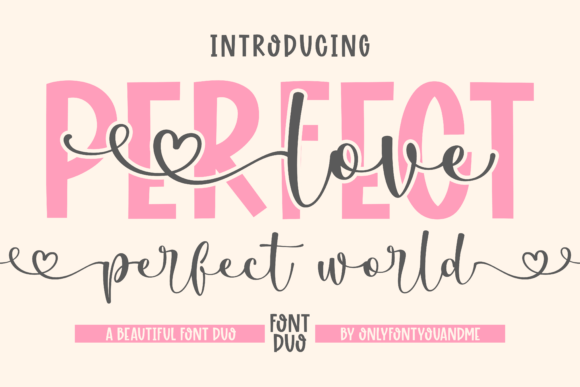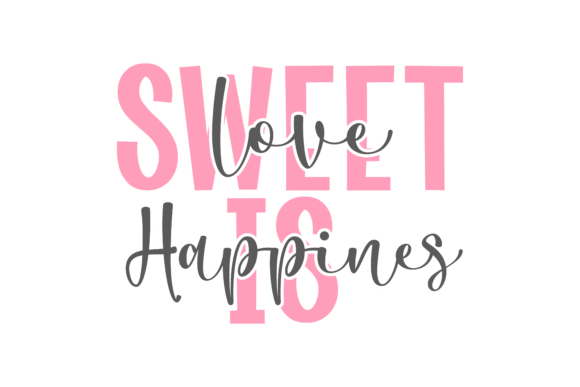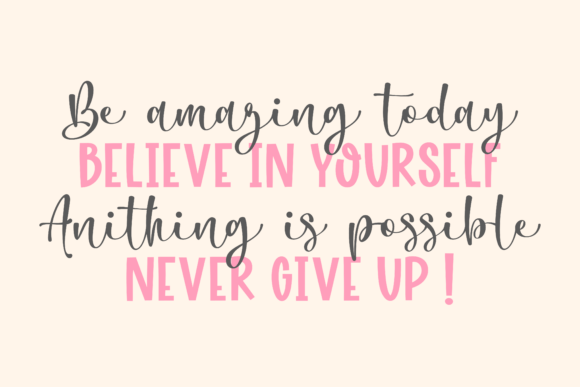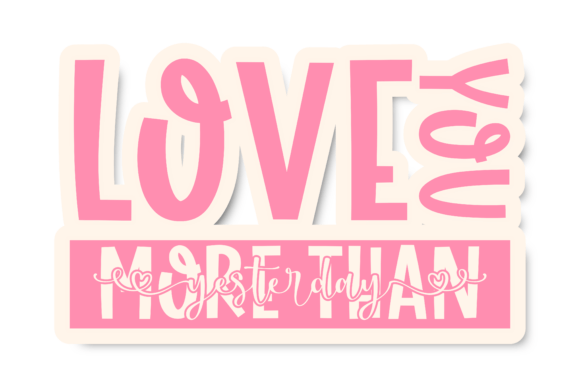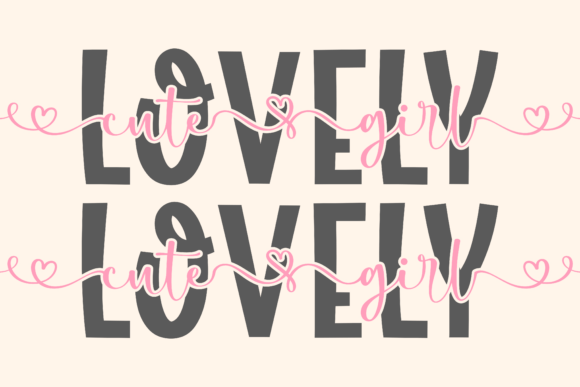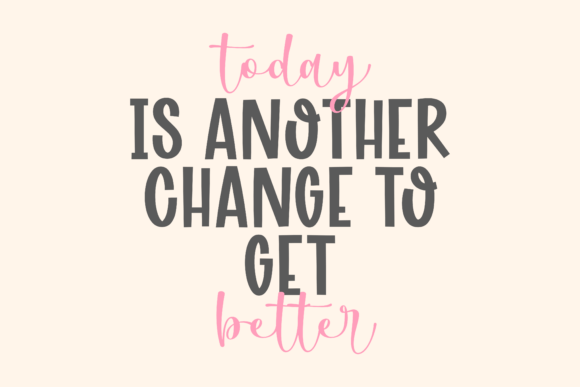
Introduction to Perfect Love Perfect World Font Font
Fonts play a crucial role in design, and the Perfect Love Perfect World Font font is a typeface that brings both character and versatility to any project. Whether you’re working on a branding project, a website, or a print design, the Perfect Love Perfect World Font font offers a unique style that can elevate your work.
This design showcases a playful and romantic font duo called βPerfect Loveβ and βPerfect World.
β The primary font combines bold, uppercase sans-serif letters with a soft pink color, accented by delicate, cursive flourishes and heart shapes, giving it a charming, whimsical feel The secondary script font features elegant, flowing handwritten-style lettering, further enhancing the romantic and delicate aesthetic.
Key Features of Perfect Love Perfect World Font Font
Why Choose Perfect Love Perfect World Font Font?
The Perfect Love Perfect World Font font is more than just a typeface β it’s a design tool that helps you communicate your message with style and clarity. Its unique character set and versatile design make it suitable for a wide range of applications, from elegant invitations to bold headlines.
With its carefully crafted letterforms and balanced proportions, the Perfect Love Perfect World Font font ensures readability and visual appeal across all mediums.
What makes Perfect Love Perfect World Font font special?
The Perfect Love Perfect World Font font stands out with its unique design, exceptional readability, and versatility across various design applications.